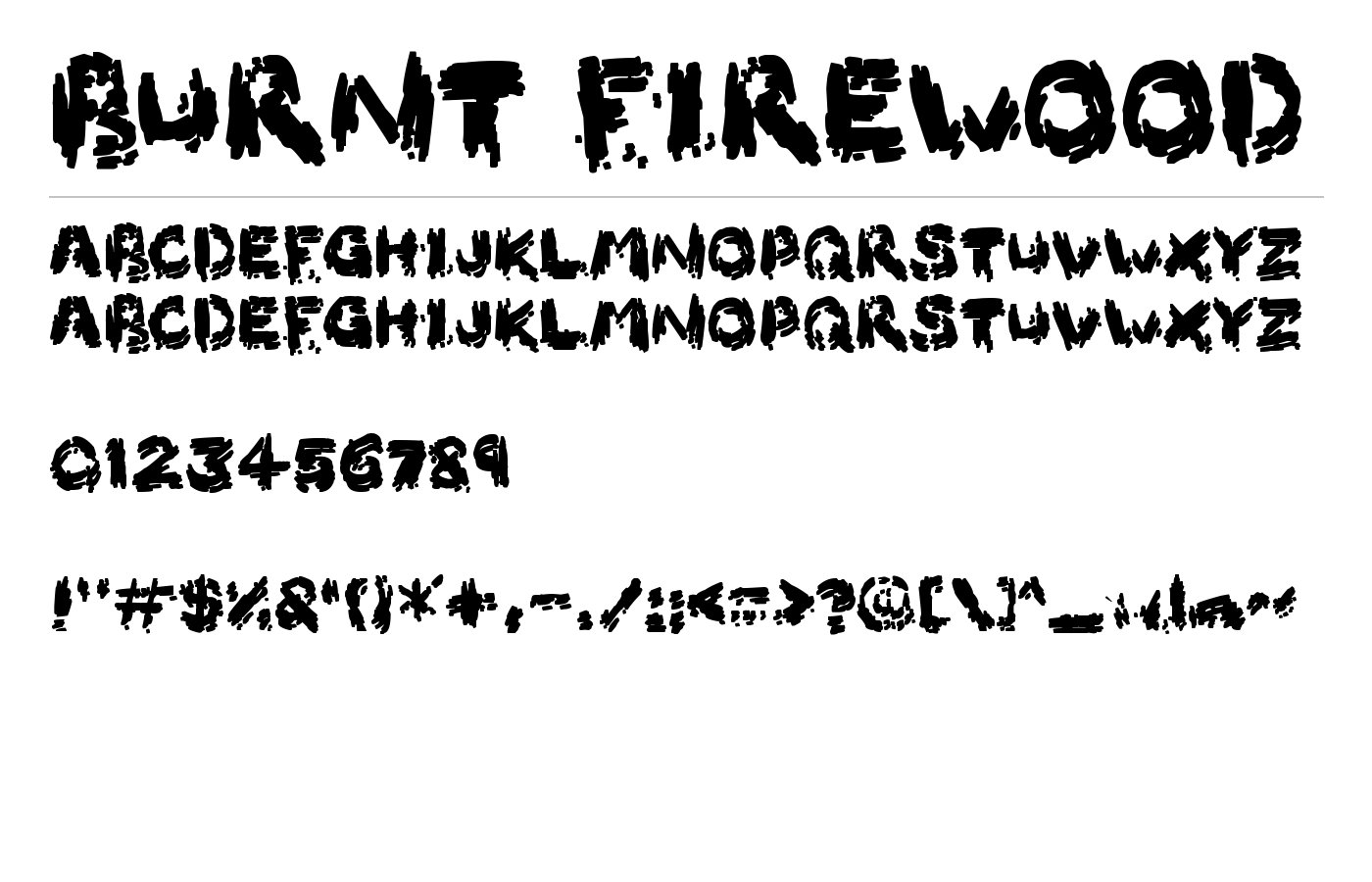
Burnt Firewood is a bold, distressed display font with a rugged, textured style that evokes a hand-burned or charred look. Its uppercase-only letterforms are heavily irregular and dense, perfect for creating an edgy, raw, and rustic feel in creative projects. This font works best for eye-catching headlines, posters, or branding that seeks to convey toughness, nature-inspired themes, or an adventurous spirit.
Burnt Firewood Font
About Burnt Firewood Font